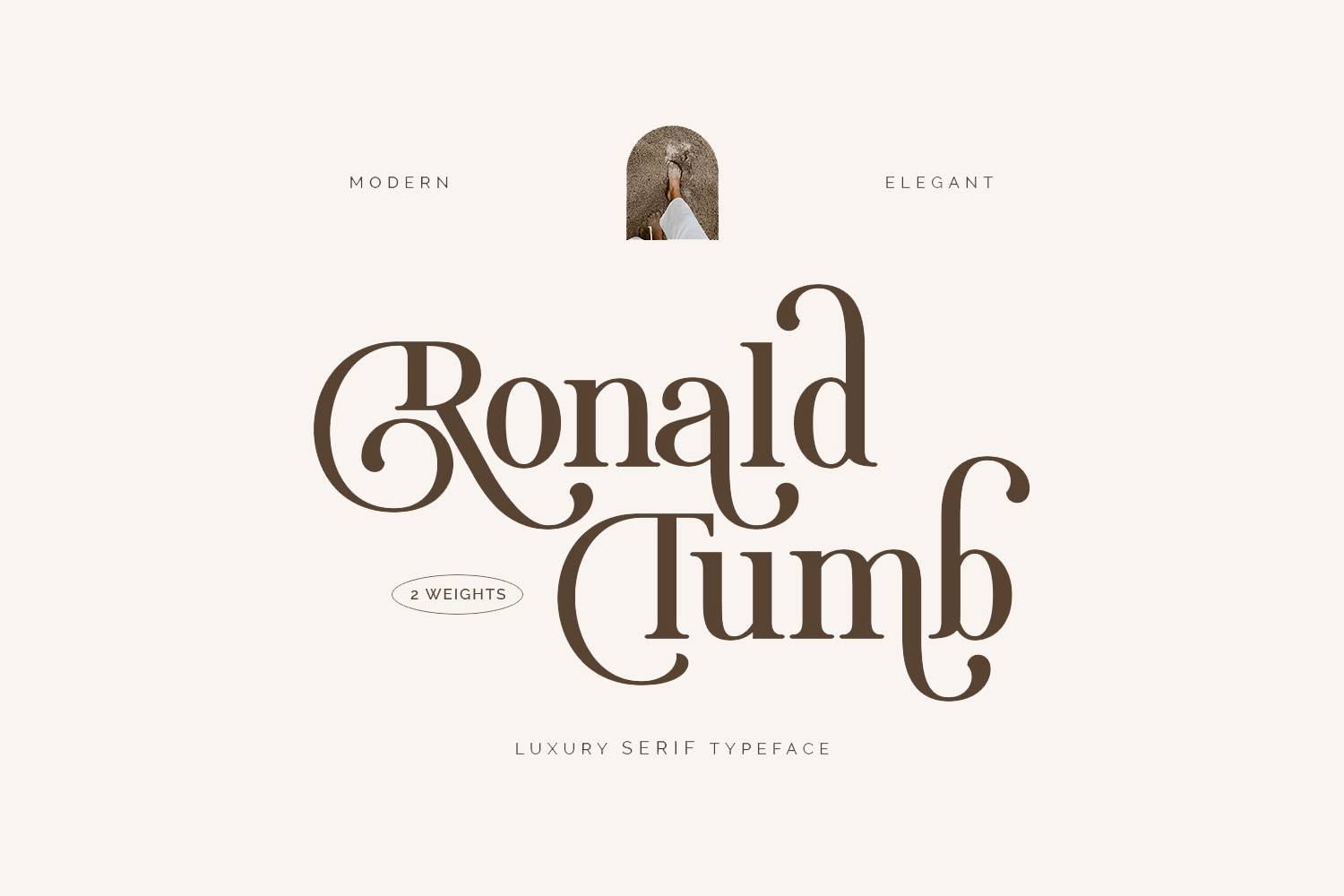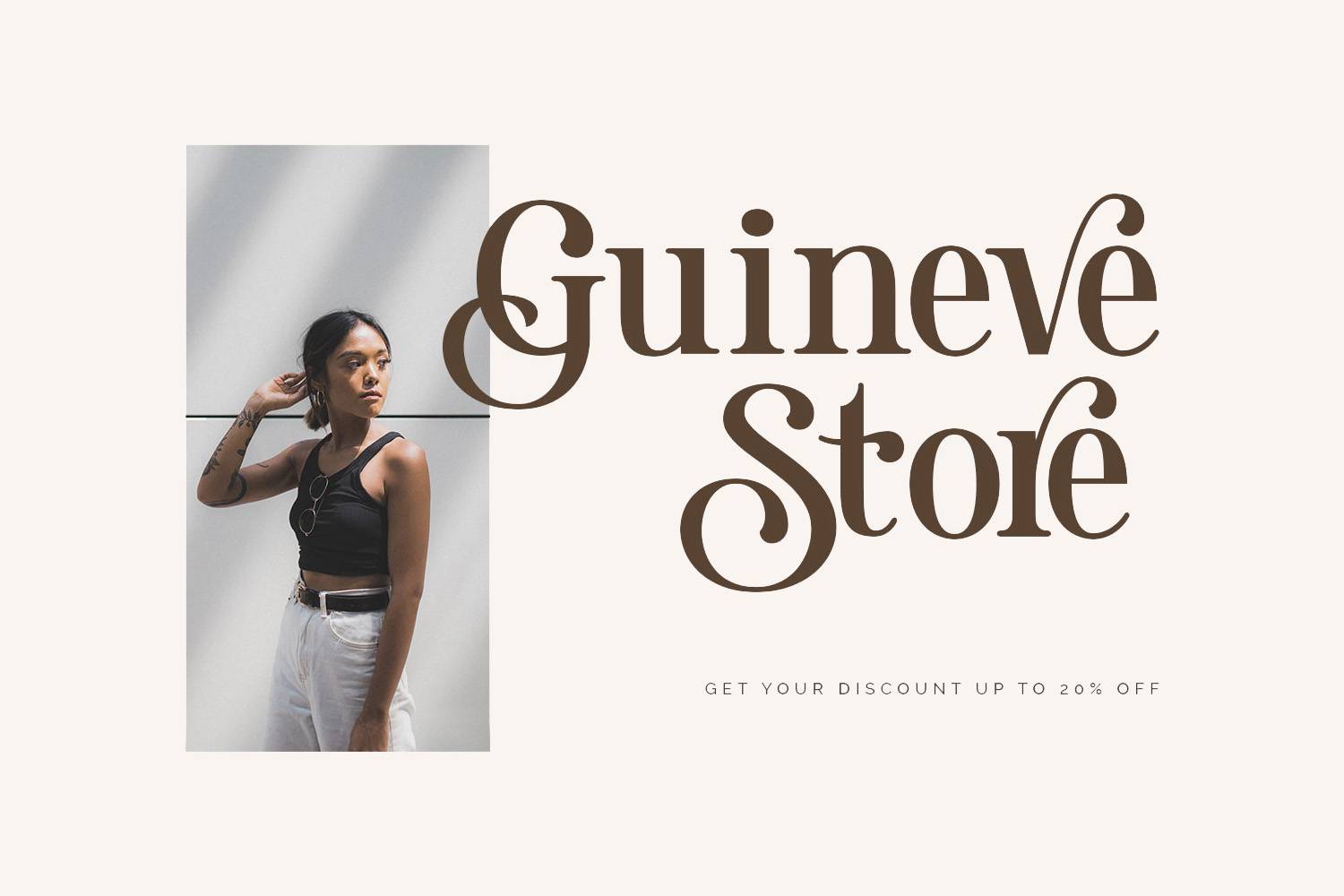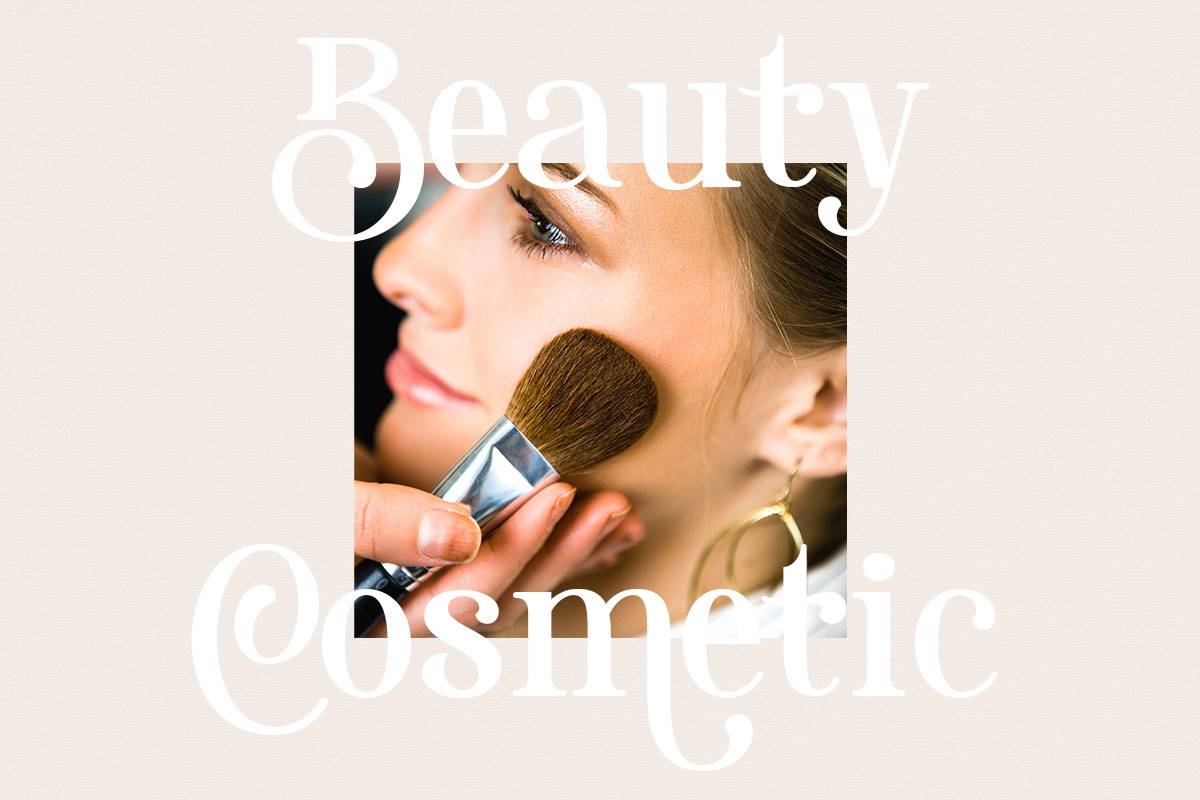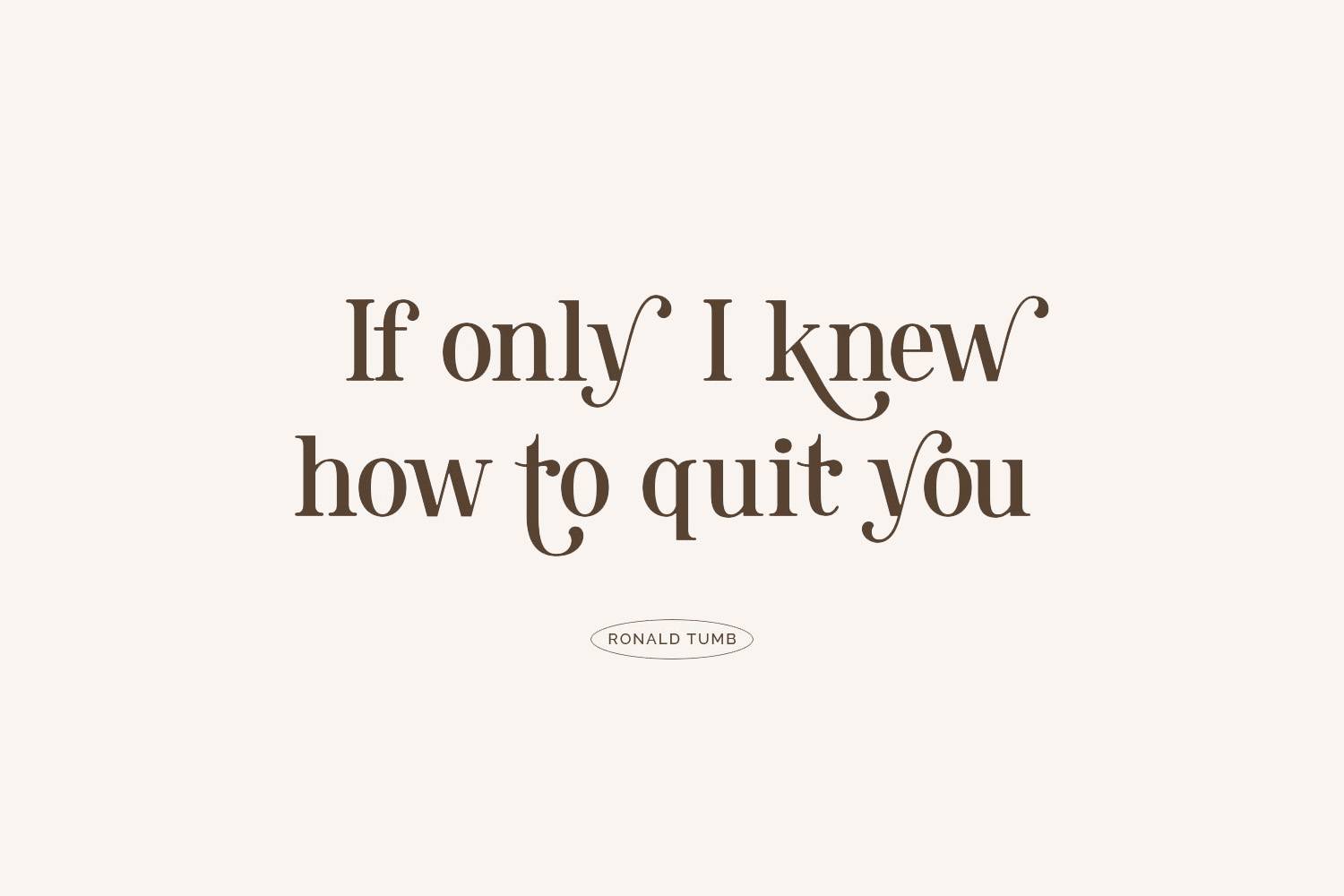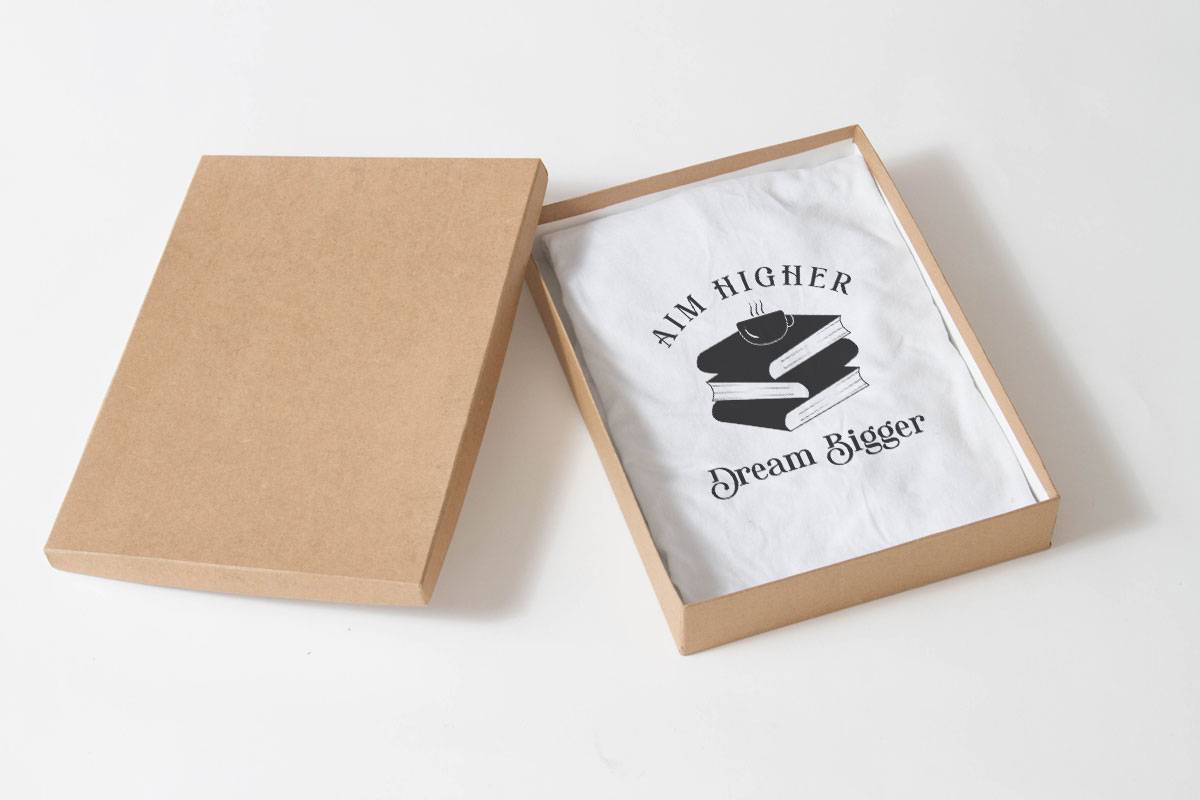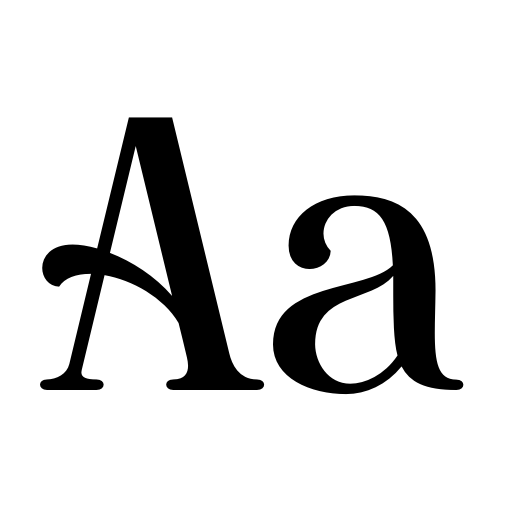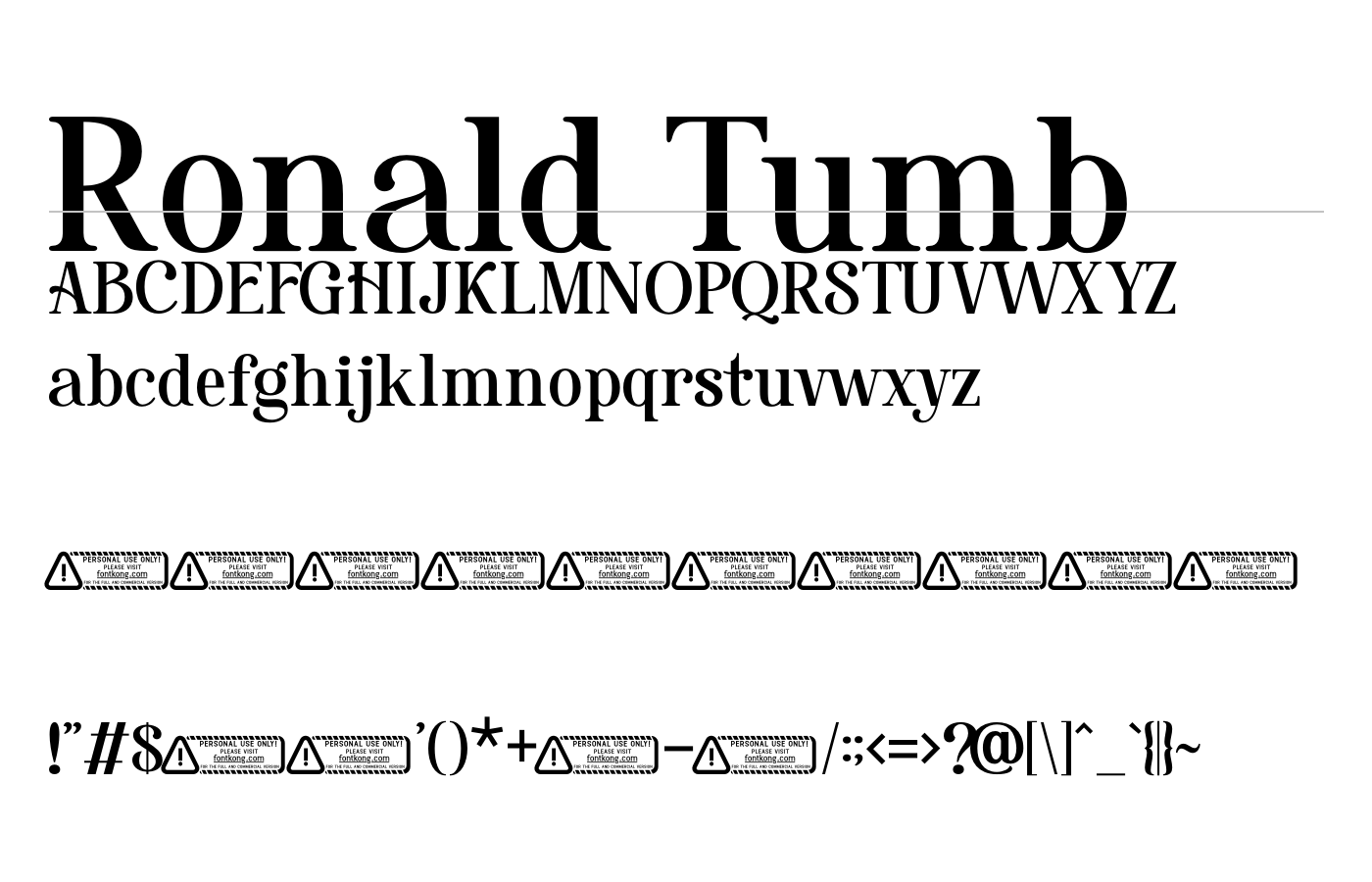
Ronald Tumb is a refined serif font with a classic, elegant feel characterized by its high contrast between thick and thin strokes and distinct bracketed serifs. It features a tall x-height and a mix of single and double-story letterforms, giving it readability and a timeless, sophisticated personality ideal for editorial, luxury branding, and formal print design. This font works beautifully for headlines and logos that need a strong, stylish presence with a touch of vintage charm.
Ronald Tumb Font
About Ronald Tumb Font
| Font family | Ronald Tumb Font |